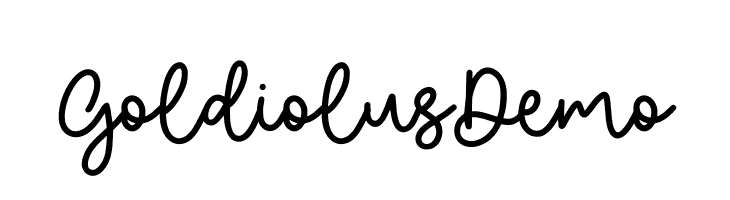
A modern, flowing script font with elegant, connected letters.
A bold, expressive script font with flowing strokes and artistic flair.
A modern, handwritten font with elongated, elegant letterforms.
A playful, handwritten font with smooth, interconnected letters.
A playful, handwritten font with fluid strokes and a whimsical style.
A bold, expressive handwritten font with dynamic strokes and modern style.
A modern, handwritten cursive font with elegant, flowing lines and dynamic contrast.